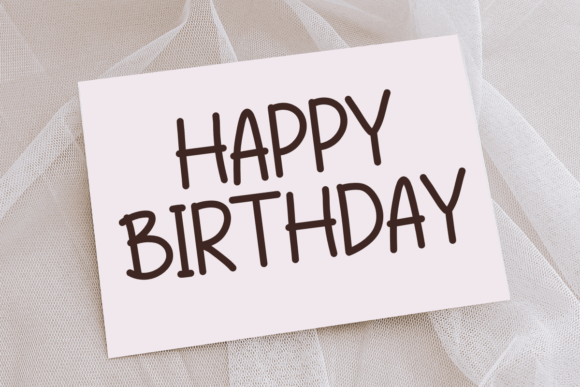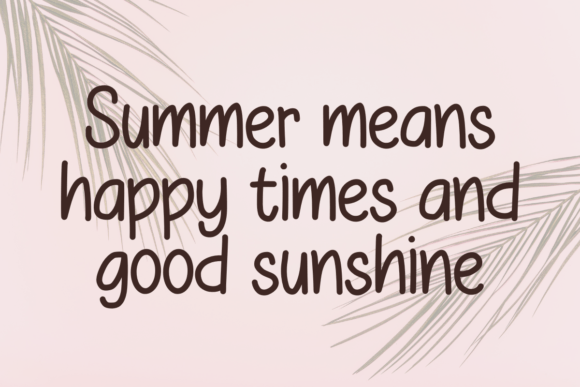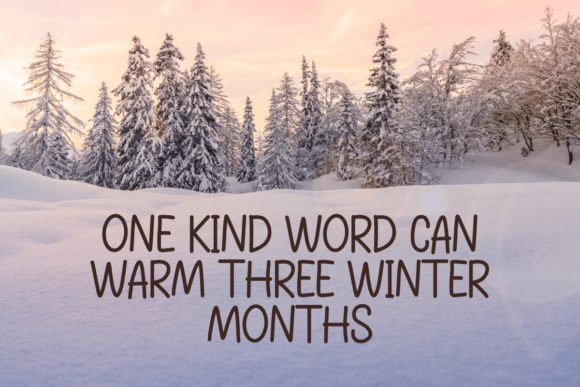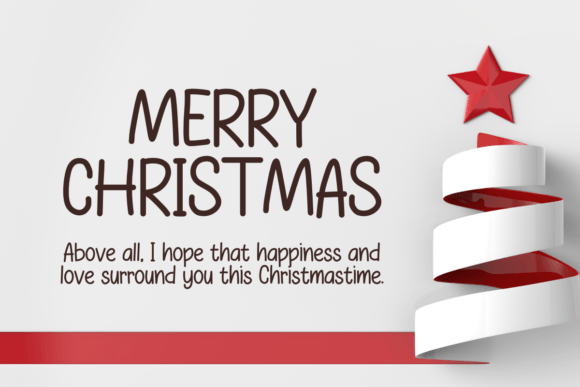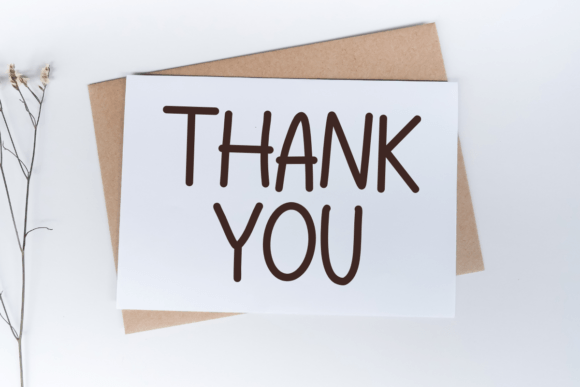
Bulluk Font: The Perfect Handwritten Sans Serif Font for Your Fun Projects
Are you looking for a font that adds a touch of friendliness and cuteness to your designs? Look no further than the Bulluk Font! Designed in a cute and friendly handwritten sans serif font style, Bulluk is perfect for a wide range of fun projects, from Easter and back to school designs to wedding and party decorations.
What Makes Bulluk Font So Special?
Bulluk Font is a unique and charming font that is sure to capture the attention of your audience. Its handwritten sans serif style gives it a personal and approachable feel, making it perfect for designs that require a friendly touch. Whether you’re creating posters, blogs, clothing, kids-related designs, greeting cards, or social media posts, Bulluk Font is the perfect choice.
Perfect for Seasonal and Holiday Designs
One of the best things about Bulluk Font is its versatility. It’s perfect for designing seasonal and holiday-themed projects, such as:
- Easter egg hunt posters and invitations
- Back to school flyers and worksheets
- Wedding invitations and decorations
- Party decorations and invitations for birthdays, baby showers, and more
- Fall, Summer, Winter, and Halloween-themed designs
- Christmas cards and decorations
With Bulluk Font, you can add a personal touch to your designs and make them stand out from the crowd.
Why Designers and Crafters Love Bulluk Font
Designers and crafters love Bulluk Font for its unique and charming style. Here are just a few reasons why:
- Easy to read: Despite its handwritten style, Bulluk Font is easy to read and understand, making it perfect for designs that require a lot of text.
- Versatile: Bulluk Font can be used for a wide range of projects, from digital designs to print materials.
- Cute and friendly: The font’s cute and friendly style makes it perfect for designs that require a personal touch.
- Unique: Bulluk Font is a unique font that will make your designs stand out from the crowd.
How to Use Bulluk Font in Your Designs
Using Bulluk Font in your designs is easy! Here are a few tips to get you started:
- Pair it with other fonts: Bulluk Font pairs well with other sans serif fonts, making it perfect for designs that require a lot of text.
- Use it for headings and titles: Bulluk Font is perfect for headings and titles, where its cute and friendly style can really shine.
- Add it to your font library: With its versatility and charm, Bulluk Font is a great addition to any font library.
In conclusion, Bulluk Font is a charming and versatile font that is perfect for a wide range of fun projects. Its cute and friendly handwritten sans serif style makes it perfect for designs that require a personal touch. Whether you’re a designer or crafter, Bulluk Font is a great addition to your font library. So why wait? Add Bulluk Font to your library today and start creating amazing designs!
- Cute and friendly handwritten sans serif font style
- Perfect for Easter, back to school, wedding, party decorations, and more
- Easy to read and versatile
- Unique and charming style
- Perfect for designers and crafters